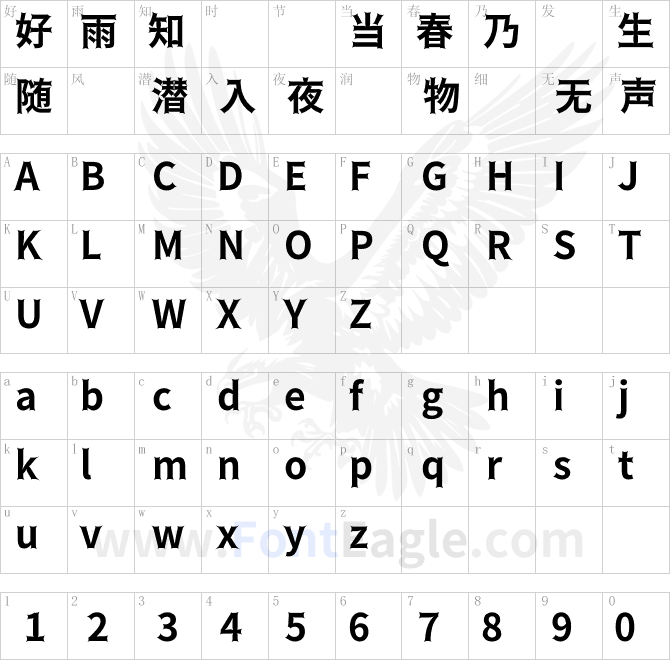
荆棘字體06TogeGothic-Bold is a great font, widely used in graphic design, single-page menu design, poster design and other fields, and is deeply loved by designers.荆棘字體06TogeGothic-Bold download.